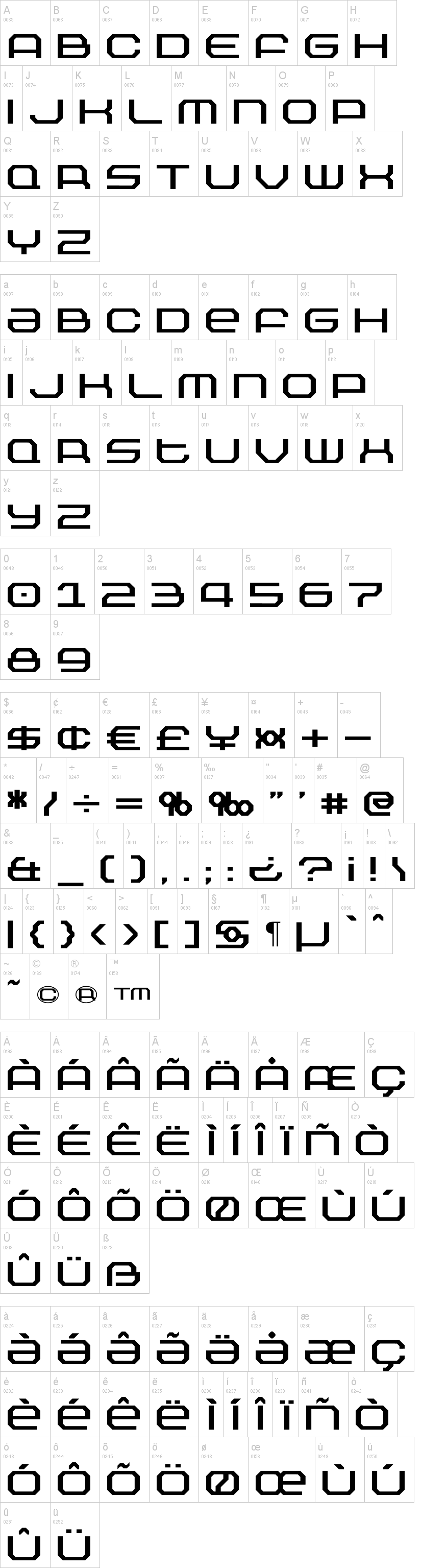
Outland Italic.otfOutland Bold.otfOutland Bold Italic.otfOutland Black.otfOutland Black Italic.otfNote of the authorOutland is based on the corporate and naval signage lettering found in Sean Connery's early 1980s movie Outland. Includes full alphabet, extended punctuation, Euro. Includes regular, italic, bold, bold-italic, black, and black-italic weights.